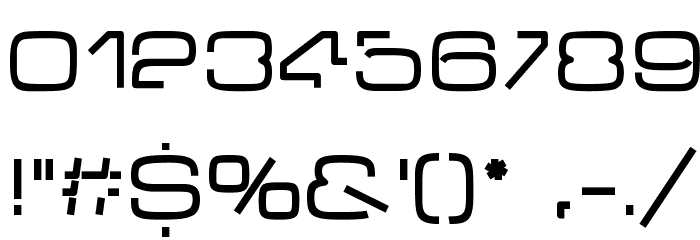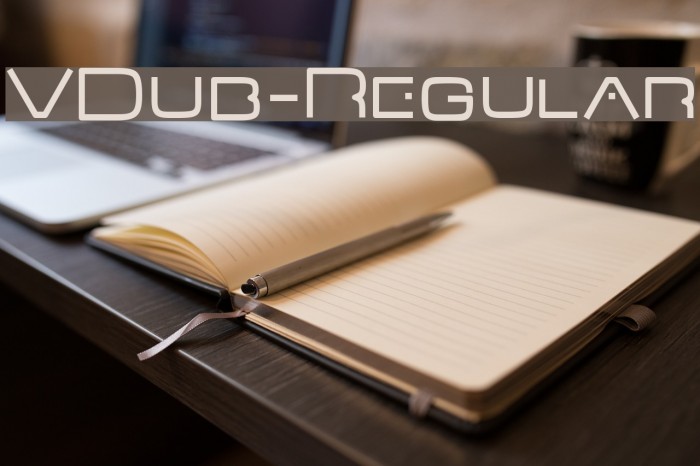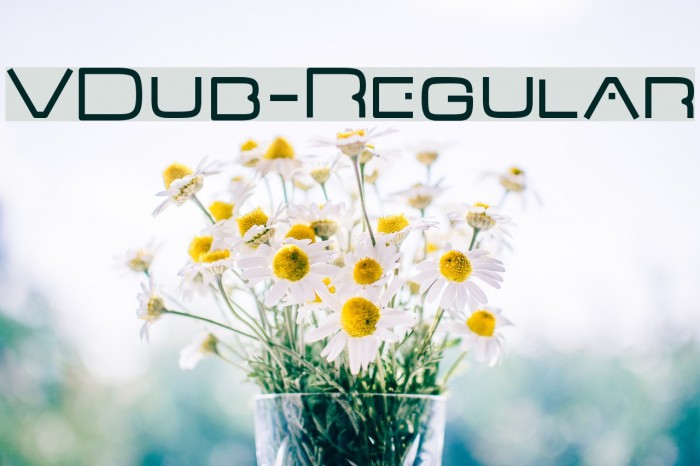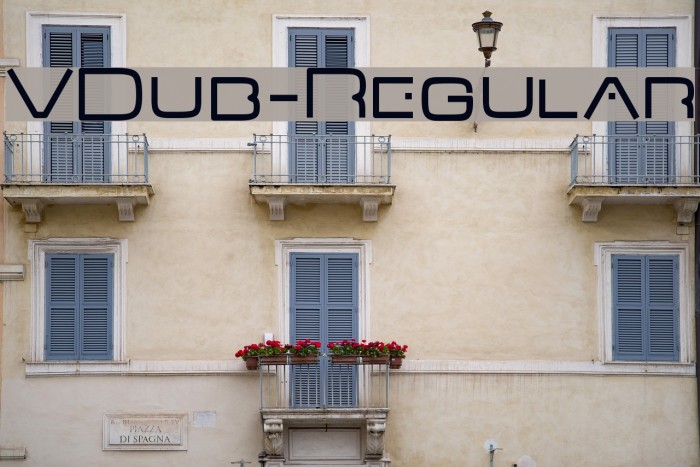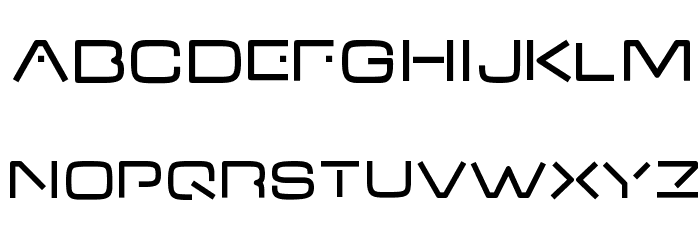
VDub-Regular Font
VDub-Regular Description
This font features a modern, geometric design with a futuristic flair. The characters are constructed with clean lines and a uniform stroke width, giving it a sleek and technical appearance. The uppercase letters are distinct with sharp angles and a minimalistic style, while the lowercase letters maintain a consistent look with slightly rounded edges. The numerals are bold and easy to read, matching the overall aesthetic of the typeface. Special characters are uniquely styled to complement the letterforms, making this font versatile for various design needs.
| Use Case | Headlines, Logos, Digital Interfaces |
| Proposed Projects | Ideal for technology branding, digital interfaces, and modern advertising campaigns. |